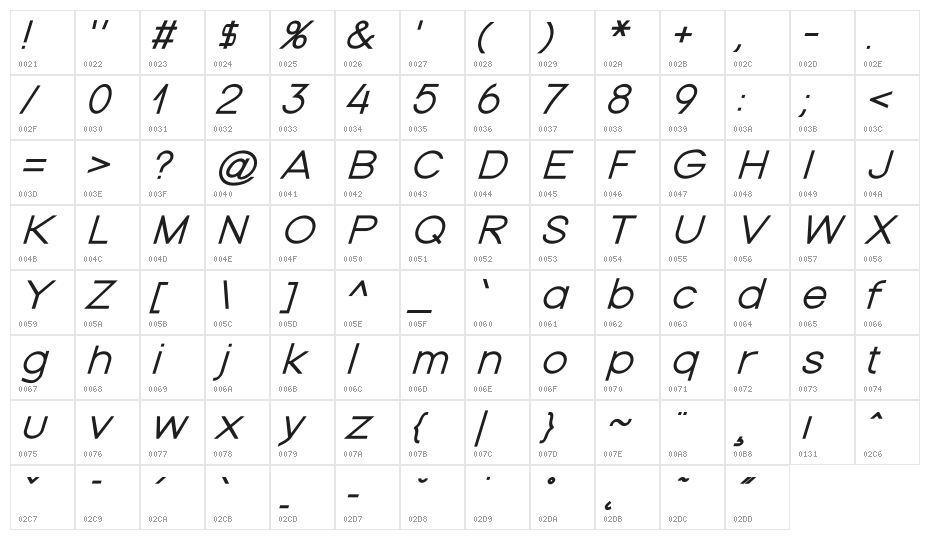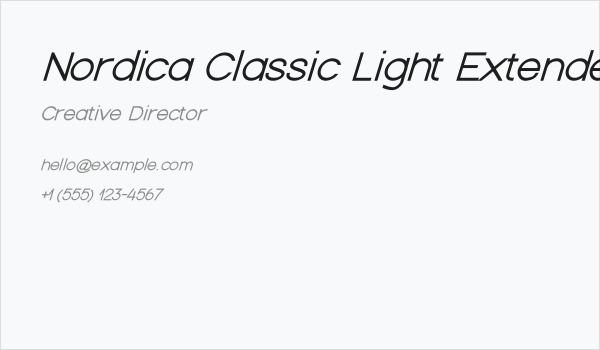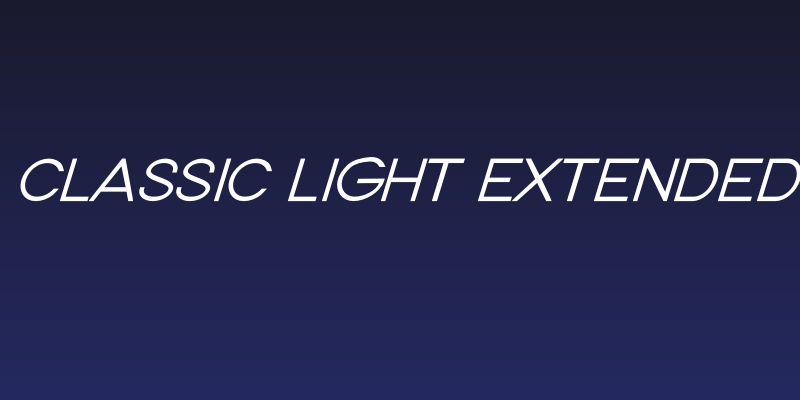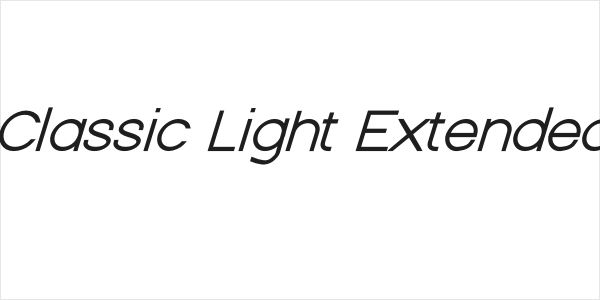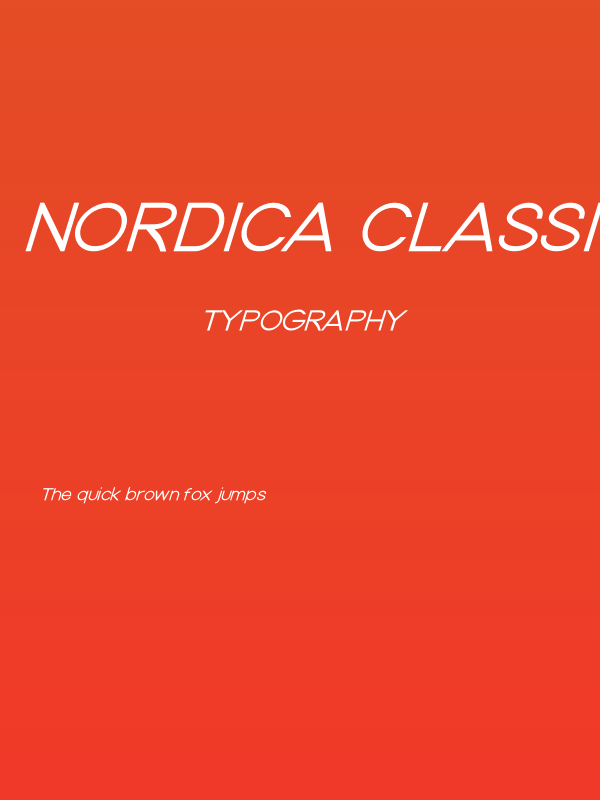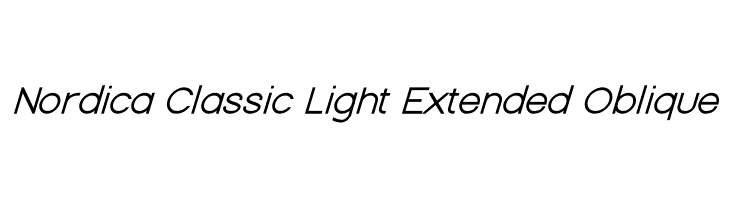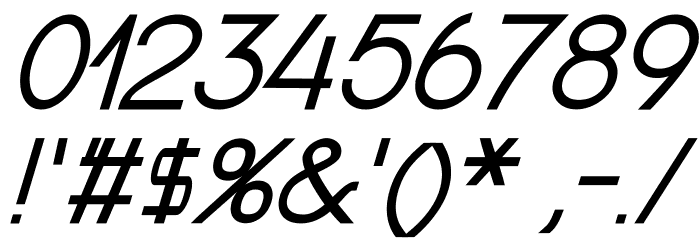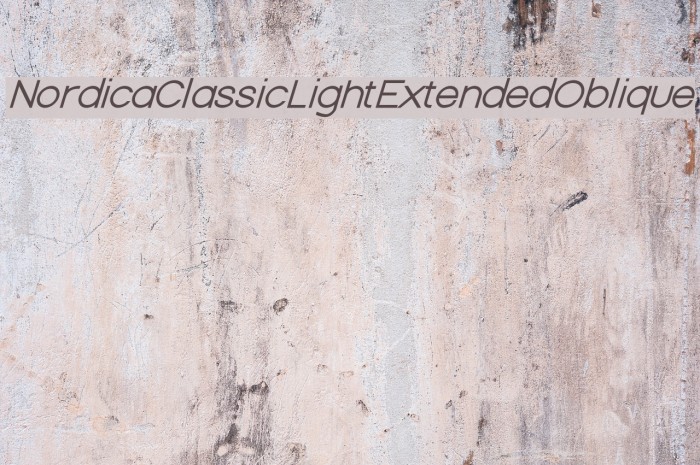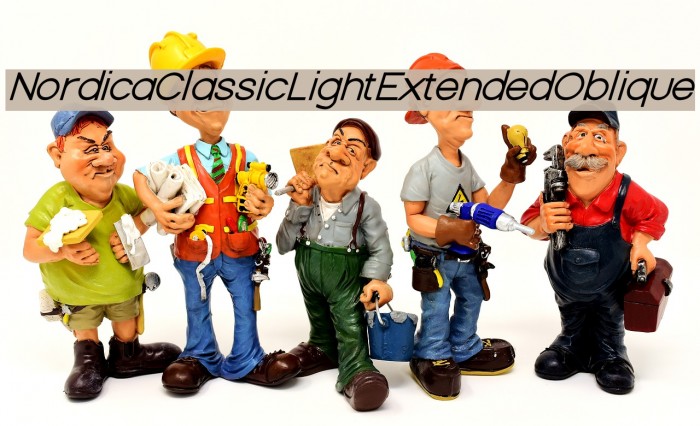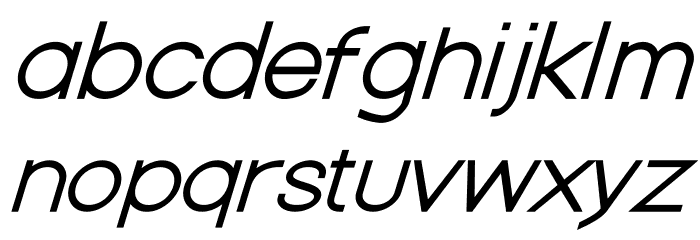
Nordica Classic Light Extended Oblique Font
Nordica Classic Light Extended Oblique Description
This font features a sleek and modern design with an oblique style, giving it a dynamic and forward-leaning appearance. The characters are elongated, contributing to an extended width that enhances readability while maintaining a sophisticated look. The light weight of the strokes adds an airy and elegant touch, making it suitable for contemporary design projects. The font's clean lines and minimalistic approach make it versatile for various applications, from digital interfaces to print media. Its oblique nature provides a sense of motion and energy, ideal for projects that require a modern and stylish aesthetic.